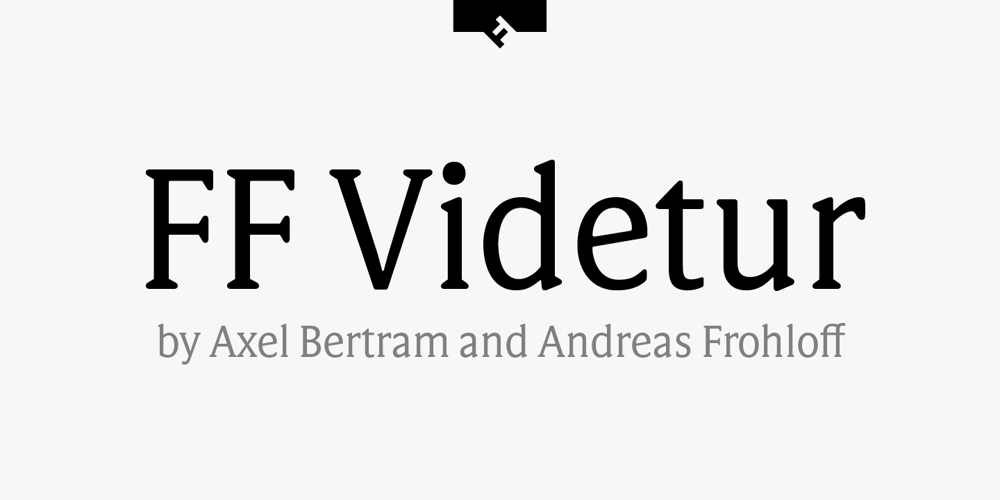
FF Videtur Font Family was designed by Axel Bertram, Andreas Frohloff and published by FontFont. FF Videtur contains 4 styles and family package options. German type designers Axel Bertram and Andreas Frohloff created this serif FontFont in 2012. The family contains 4 weights: Light, Regular, Medium, and Bold and is ideally suited for film and tv, editorial and publishing, small text as well as web and screen design. FF Videtur provides advanced typographical support with features such as ligatures, alternate characters, case-sensitive forms, fractions, super- and subscript characters, and stylistic alternates. It comes with a complete range of figure set options – oldstyle and lining figures, each in tabular and proportional widths.